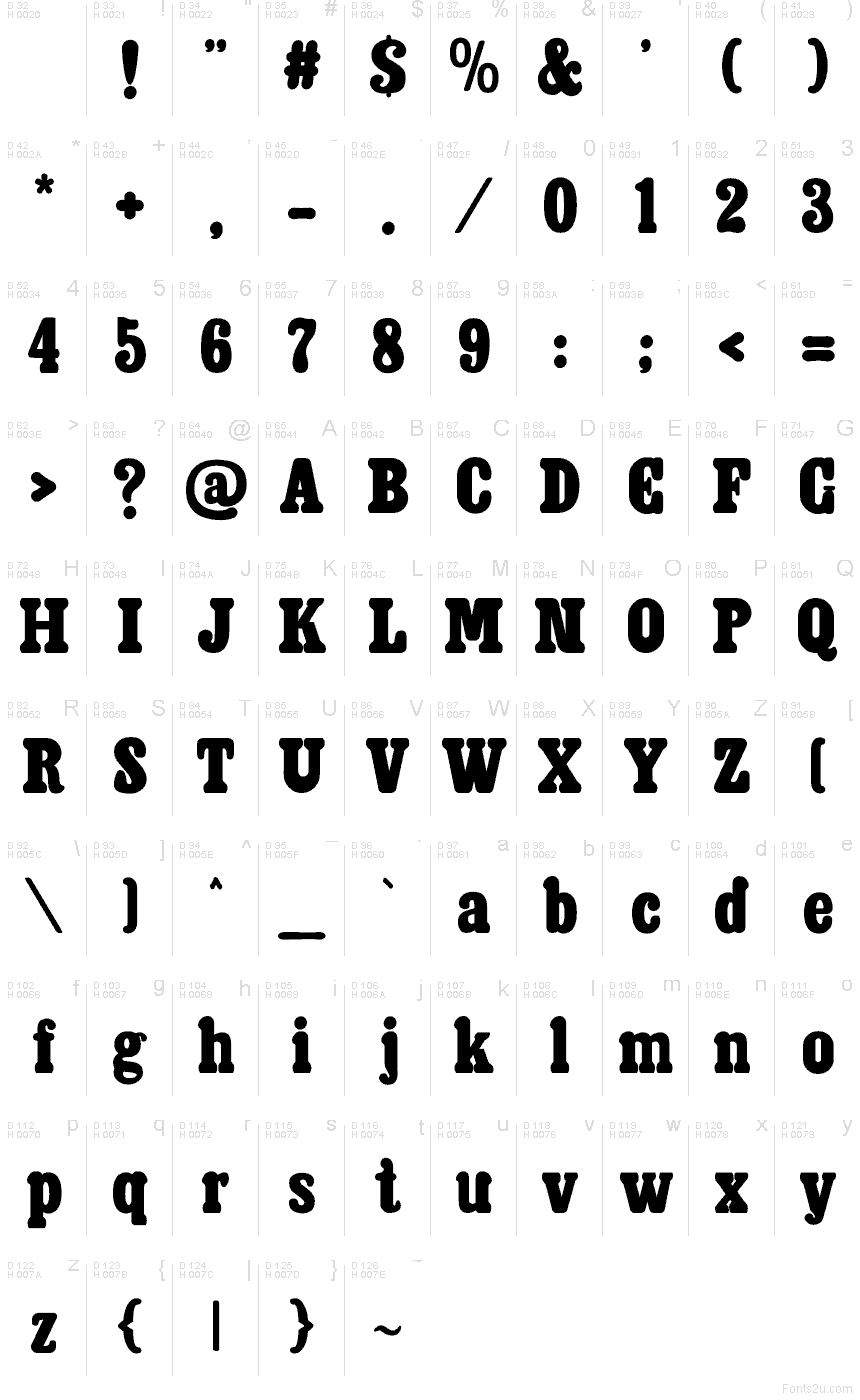
Westroon Demo
Westroon font by Glyphstyle is a free western display typeface with big, weighty letterforms and soft, rounded curves that feel straight out of a vintage saloon sign. The bold slabs are tightly sculpted, with just enough swagger to suggest woodblock posters and dusty storefronts without feeling kitschy. There’s a satisfying, almost carved-in-wood solidity to the shapes, giving your titles a strong, cinematic presence at first glance.
Using Westroon, this free font shines on bar logos, BBQ or steakhouse branding, event posters, country music covers, festival signage, and retro packaging. Its chunky rhythm holds up beautifully at large sizes, where the curves and thick strokes can really breathe. For body text, pair it with a simple grotesque or clean geometric sans, and let Westroon handle the loud, attention-grabbing headlines.